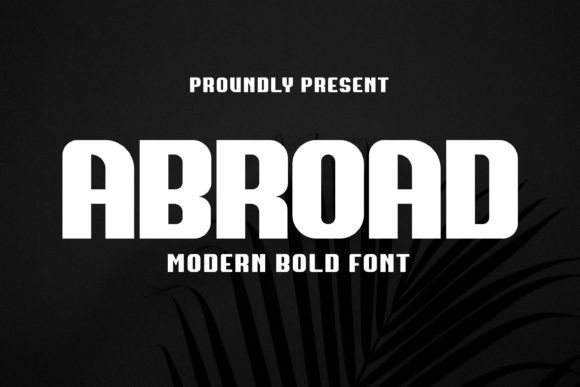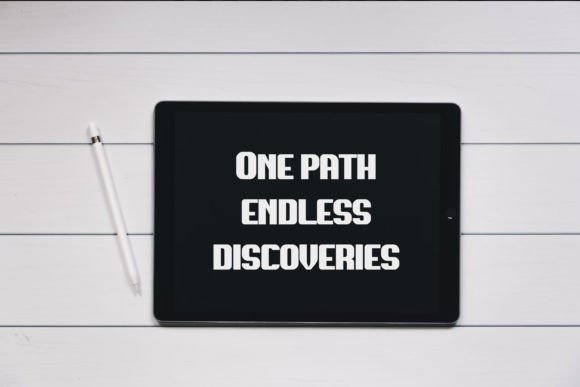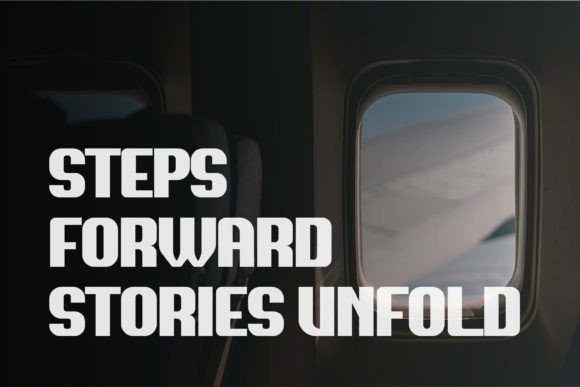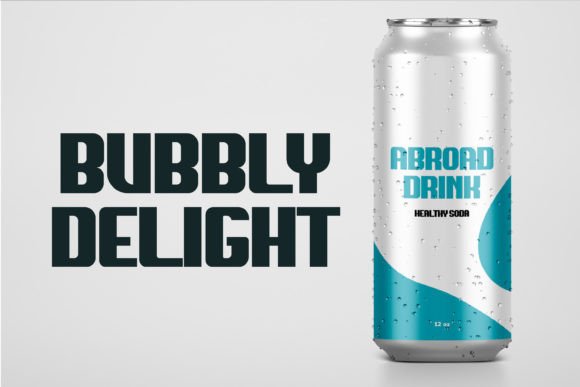
Abroad Font: Modern Bold Font for Logo Design & Headlines
About the Abroad Font
From logos to headlines, the Abroad Font is the perfect choice for making a lasting impression. Introducing “Abroad Bold Font” – Your Gateway to Distinctive Typography!
Unleash the power of expression with Abroad Bold Font, a dynamic typeface meticulously crafted to elevate your designs to unprecedented heights. Whether you’re a seasoned designer or a budding creative, Abroad Bold Font is your ultimate tool for making a bold statement that demands attention.
Abroad Bold Font projects a confident, modern personality, ideal for headlines, logos, and short impactful statements. Its strong forms work exceptionally well in branding applications for upscale products or services, posters, and even short-form packaging copy where readability isn’t compromised by size reduction. Avoid using it for body text or lengthy paragraphs; its boldness can overwhelm and hinder legibility in smaller sizes.
Pairing Abroad Bold with a clean sans-serif like Open Sans for body copy creates a balanced and professional aesthetic. For a more playful feel, consider pairing it with a handwritten script font such as Pacifico, using the script for secondary elements. Conversely, a geometric sans-serif like Montserrat provides a modern contrast that complements Abroad Bold’s strong character.
Its inherent boldness makes it unsuitable for user interfaces (UI) or applications requiring high readability at small sizes. The font’s strength shines when used sparingly, as an accent or focal point, to create impactful visual hierarchy.
Abroad Font Usage Examples
Abroad Font Example